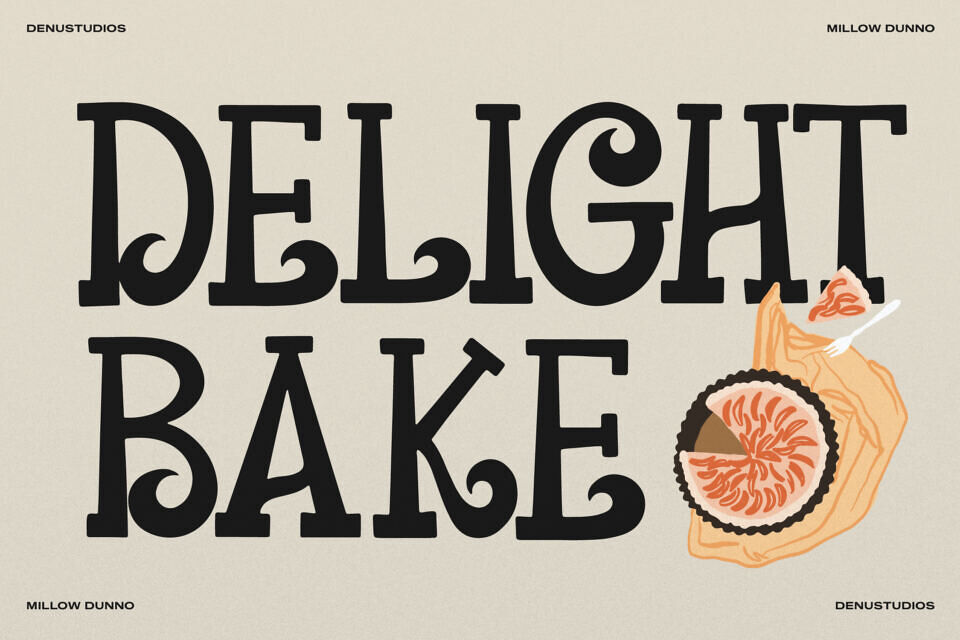
Channel a laid-back, sun-drenched vibe with Millow Dunno, a playful hand-drawn display font that captures the “retro-coastal” soul of the 1970s. This typeface features chunky, slab-serif letterforms characterized by whimsical, wave-like curls and organic terminal flourishes.
With its heavy weight and rhythmic, hand-lettered bounce, Millow Dunno is the premier choice for independent surf-culture branding, retro summer festival posters, boutique artisan merchandise, and high-impact “vintage-chill” social media headers.